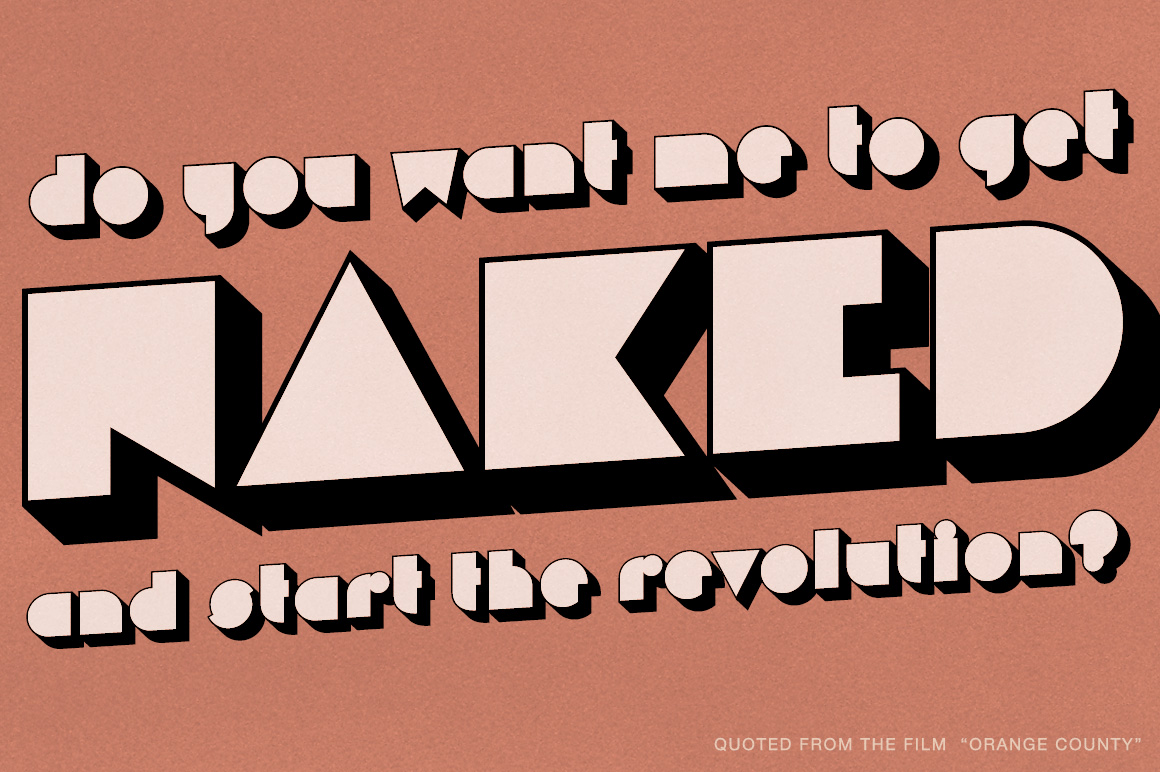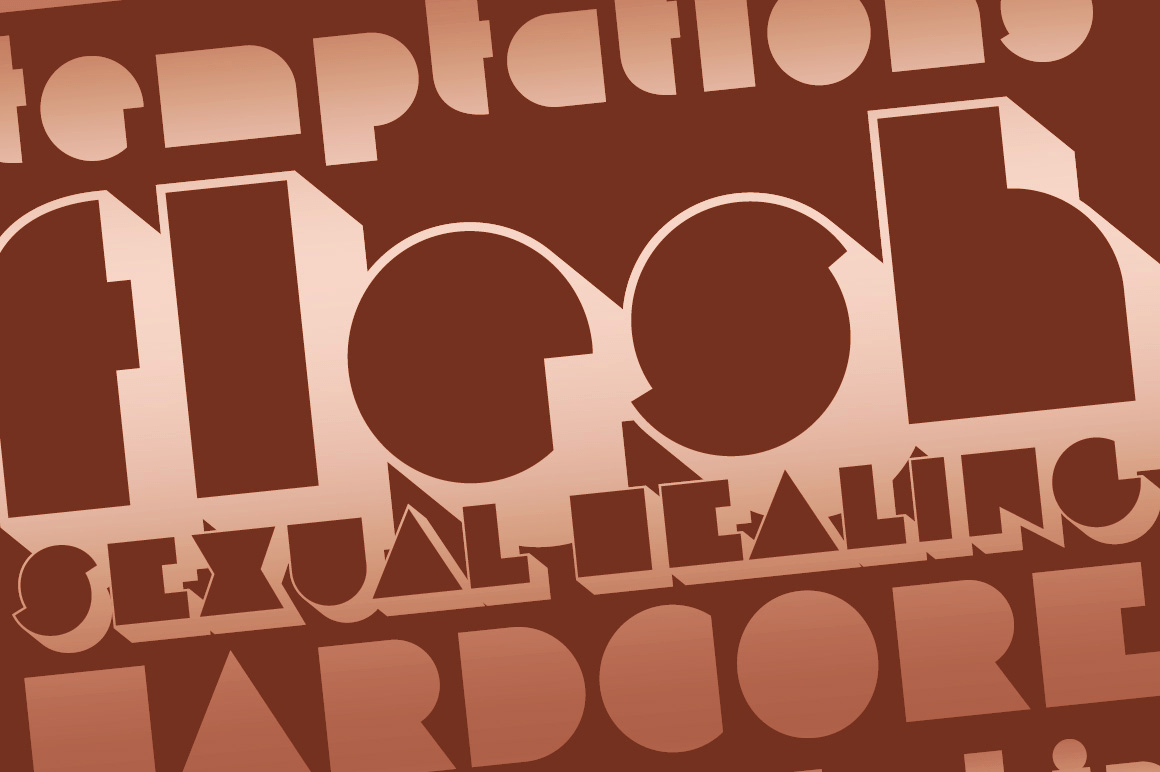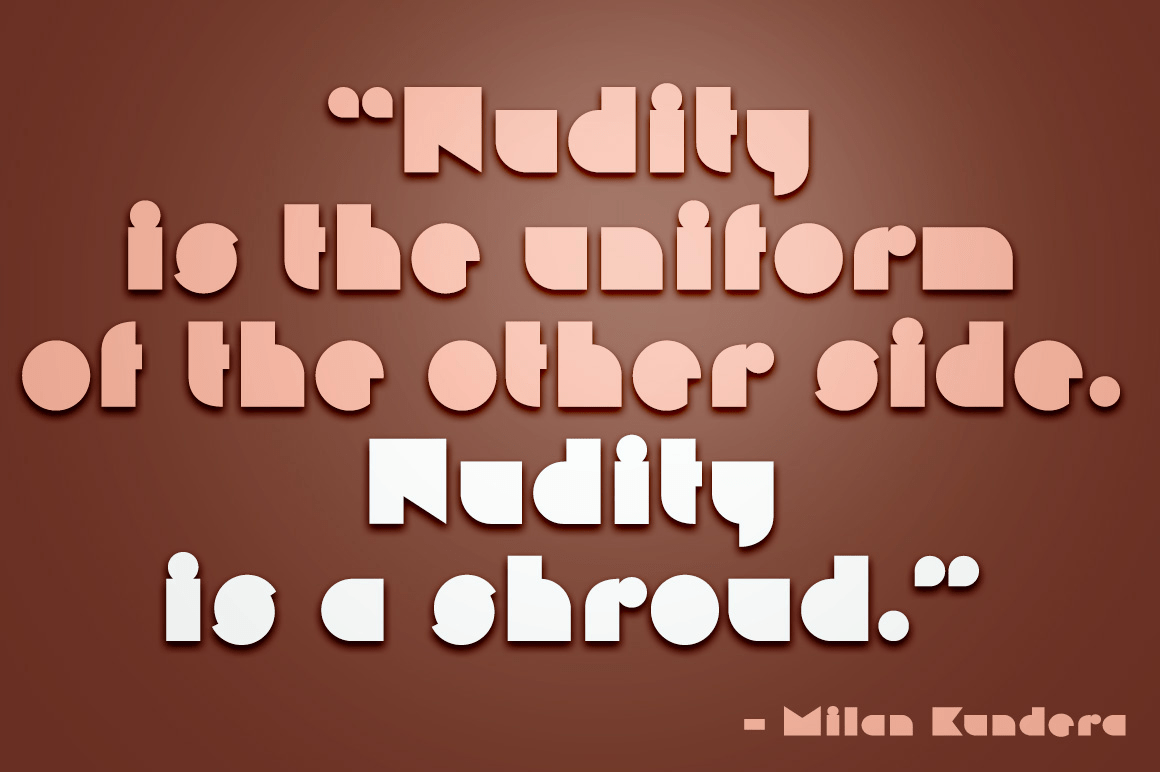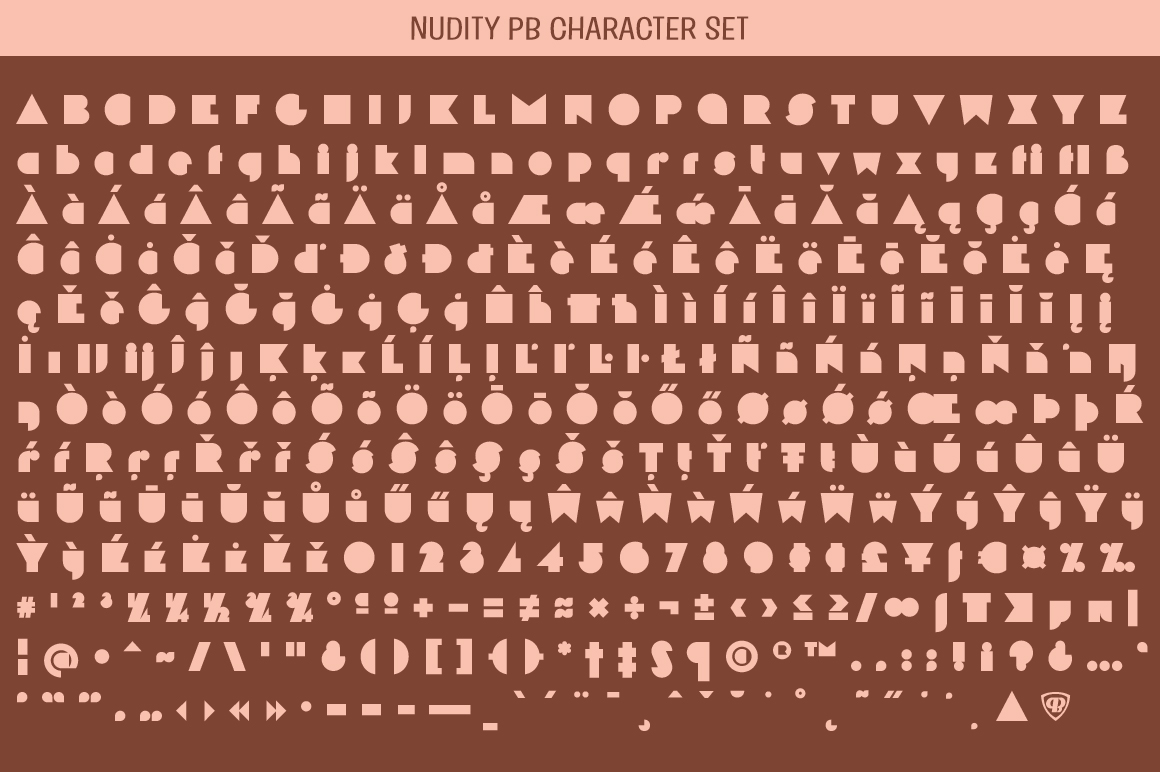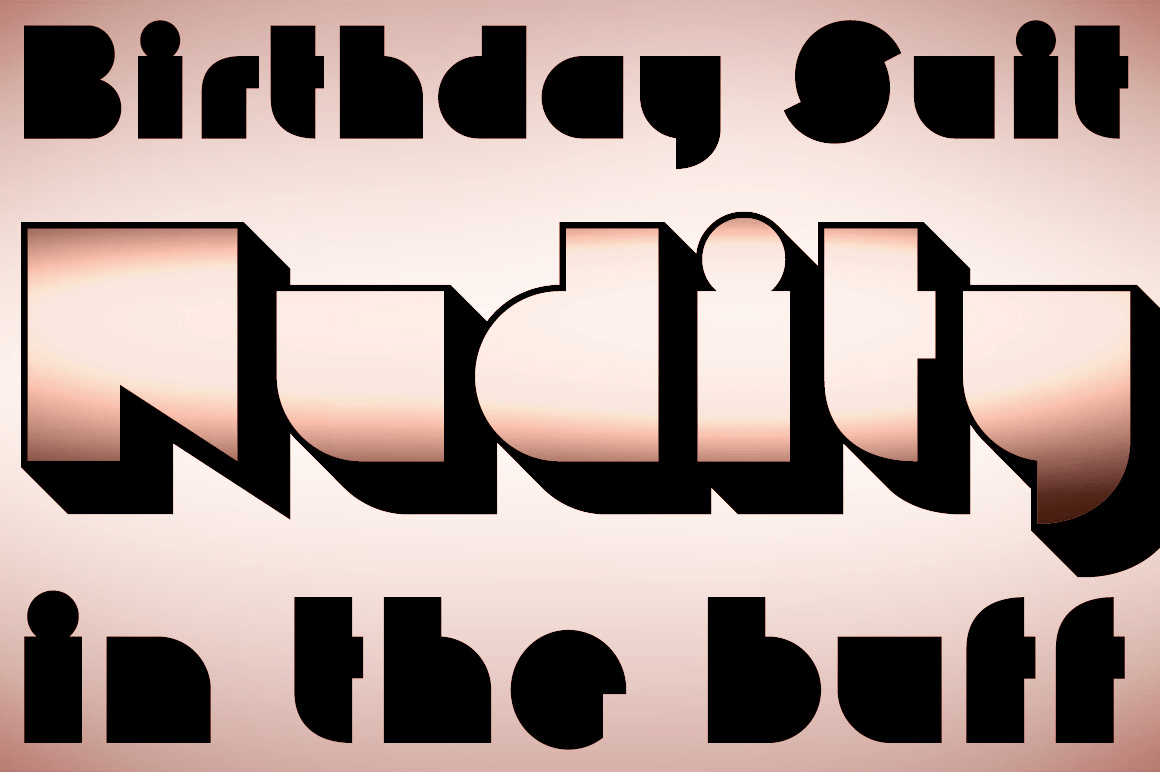
About Nudity
Full of retro flare, the Nudity family started as a digitization of a film typeface called Ad Shadow by LetterGraphics. The font was then split into 2 layerable fonts to recreate the effect without uncomfortable overlaps of the extruded shadow effect,…